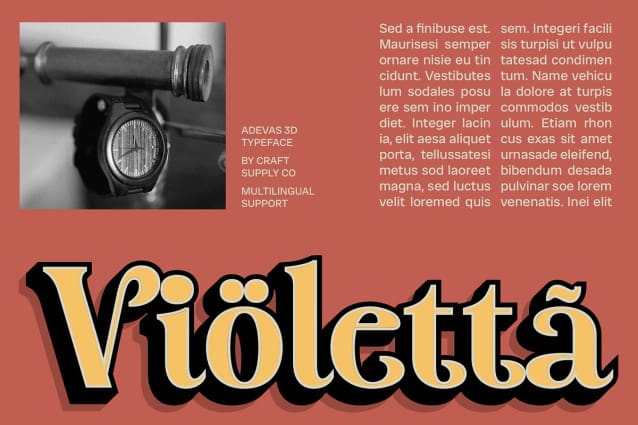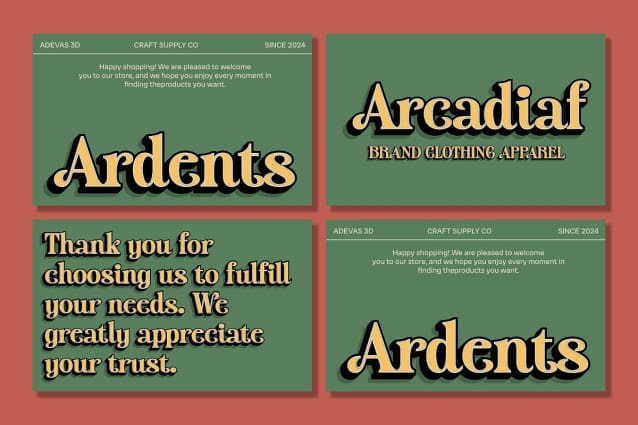
Adevas 3D Font
Adevas 3D Font is a modern serif font characterized by its psychedelic shapes that blend beauty and elegance. The font’s surreal forms add a distinctive touch, making it perfect for designs that seek to push boundaries and captivate attention.
Captivating 3D Effect The 3D effect enhances the font’s visual impact, adding depth and dimension that bring its psychedelic shapes to life. This effect creates an eye-catching, sophisticated look, ideal for projects that demand a unique and refined aesthetic.
Perfect for Unique Branding and Artistic Projects Adevas 3D is ideal for unique branding, artistic projects, and fashion-forward designs. Its blend of surreal elegance and dimensional depth ensures it stands out, offering a combination of sophistication and creativity that leaves a lasting impression.
Stand Out with Surreal Refinement Elevate your designs with the captivating charm of Adevas 3D. Its psychedelic shapes and 3D effect create a visually stunning and refined appearance, making it the perfect choice for those who want to make a bold and stylish statement.